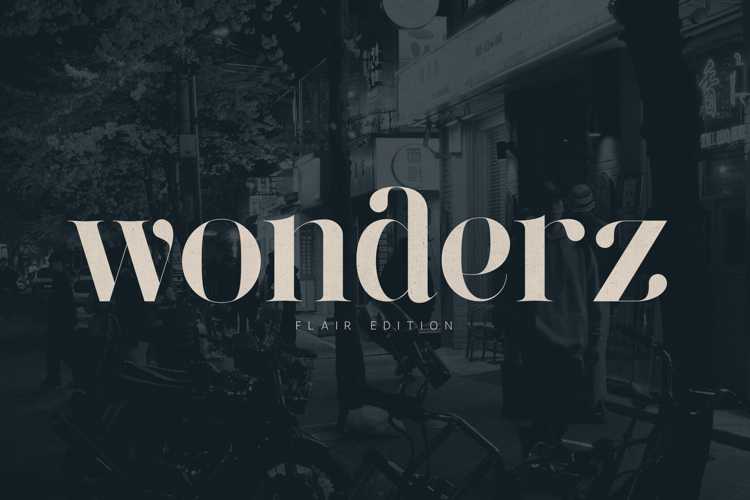
Wonderz Modern Editorial Serif Font
Wonderz is a modern editorial serif typeface crafted for elegant branding, luxury design, and expressive typography.
Designed with refined contrast and distinctive letterforms, Wonderz blends contemporary aesthetics with timeless serif elegance. Unique character details and carefully shaped curves create a sophisticated visual rhythm that works beautifully in high-impact typography.
The typeface is perfect for designers looking to create bold headlines, stylish branding, and premium editorial layouts.
Wonderz works exceptionally well in fashion design, luxury branding, magazine layouts, packaging, and modern logo design.
The font includes uppercase and lowercase characters, numerals, punctuation, and extended multilingual support, making it suitable for international design projects.
Perfect for• Branding
• Editorial design
• Fashion typography
• Magazine layouts
• Logo design
• Posters and headlines
• Social media graphics
• Packaging design